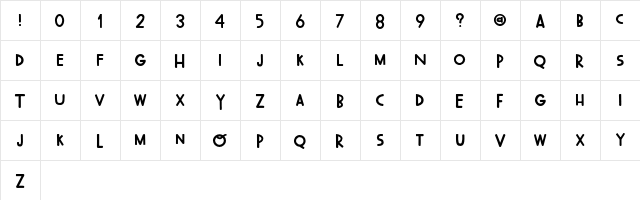
Oh Wonderful Regular DEMO Regular
Design Context for Oh Wonderful Regular DEMO Typeface
Oh Wonderful Regular DEMO takes a measured approach to typography — its balanced proportions and neutral character make it a reliable workhorse for both digital and print work.
Pro Tip: Use Oh Wonderful Regular DEMO in both headline and body roles to test its range before committing to a single application.